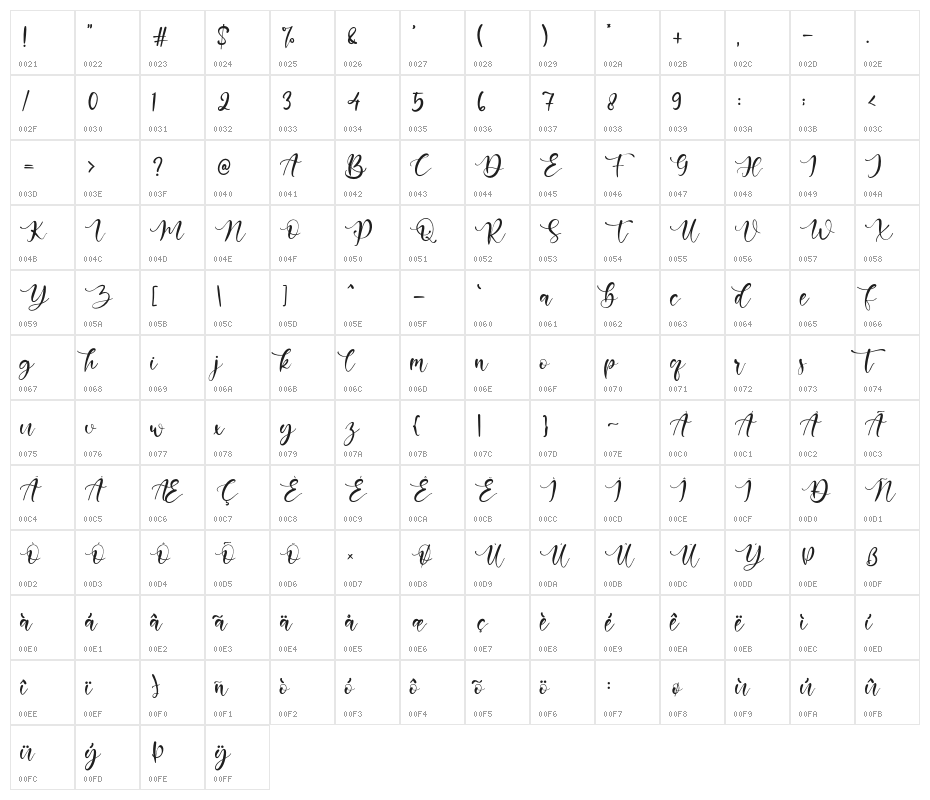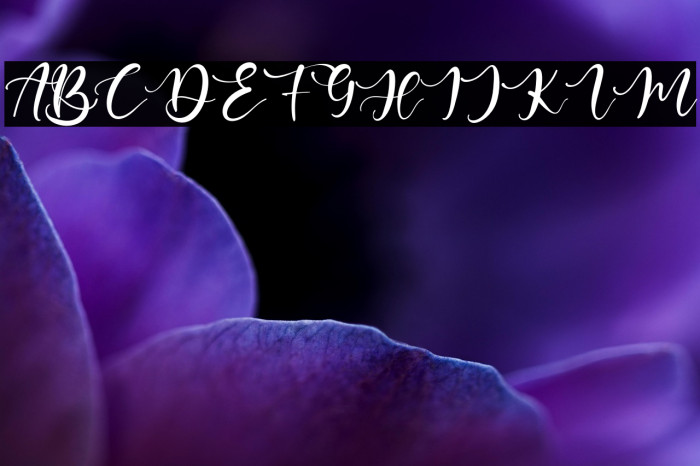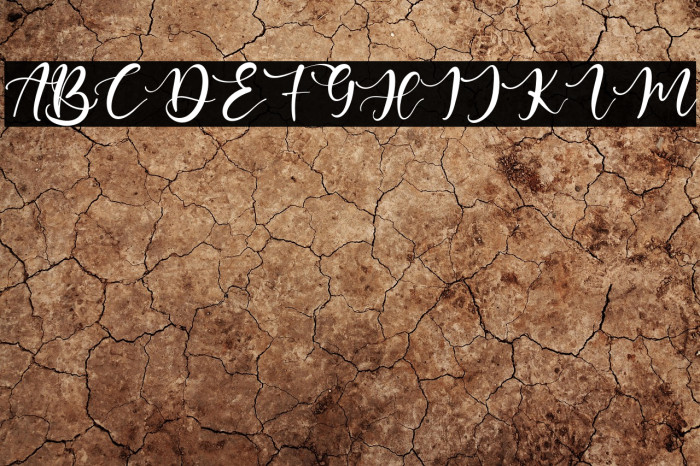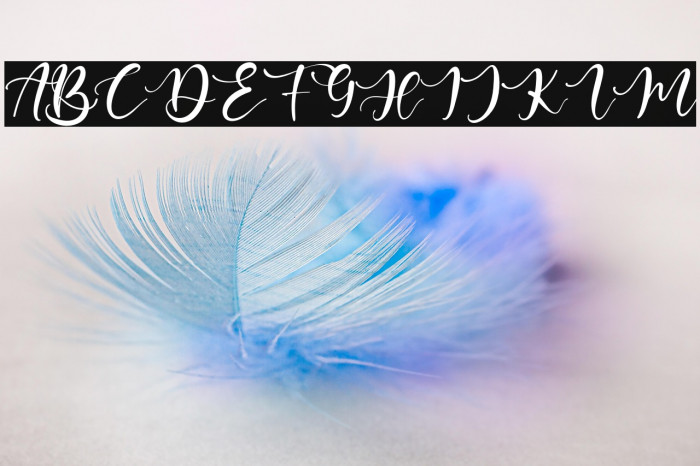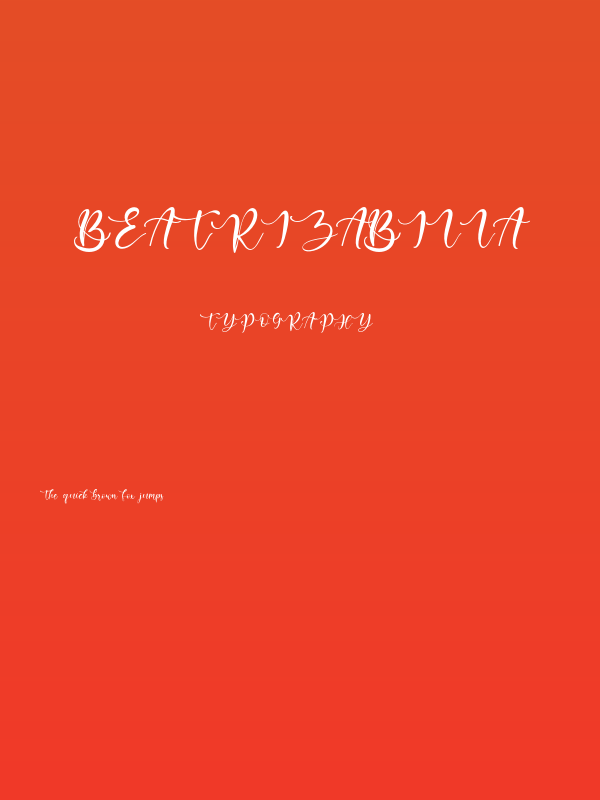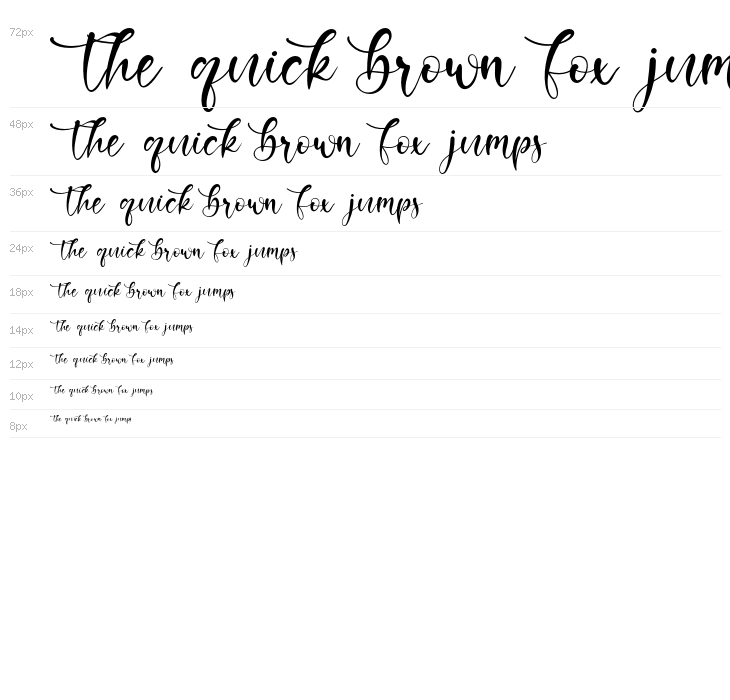
BeatrizAbilla Font
BeatrizAbilla Description
This font features an elegant and flowing script style, characterized by its smooth, cursive strokes and graceful curves. The uppercase letters are ornate, with decorative swashes that add a touch of sophistication. The lowercase letters maintain a consistent flow, enhancing readability while retaining a stylish flair. Numbers and special characters are designed to complement the overall aesthetic, ensuring a cohesive look across all text elements. The font's design is perfect for projects that require a personal, handwritten touch, making it ideal for invitations, greeting cards, and branding materials.
| Proposed Projects | Ideal for wedding invitations, greeting cards, branding, and elegant signage. |